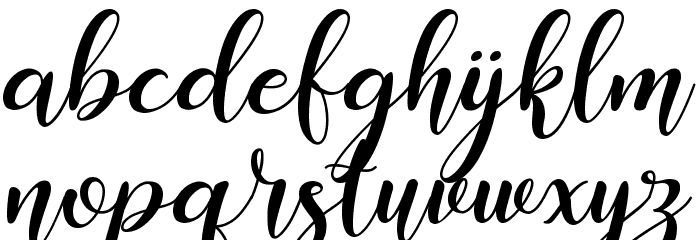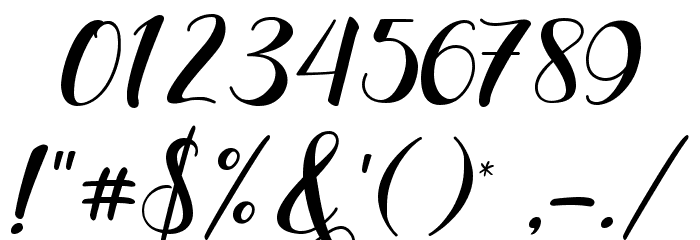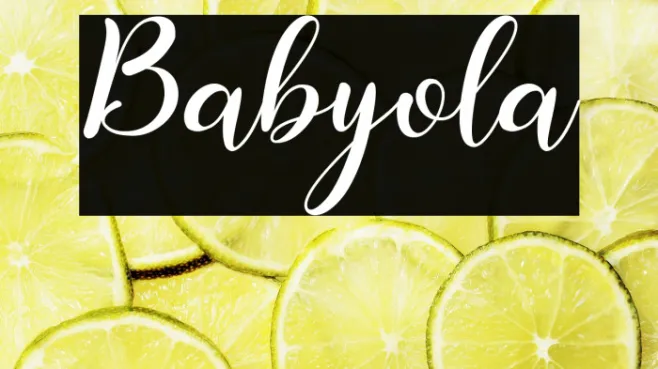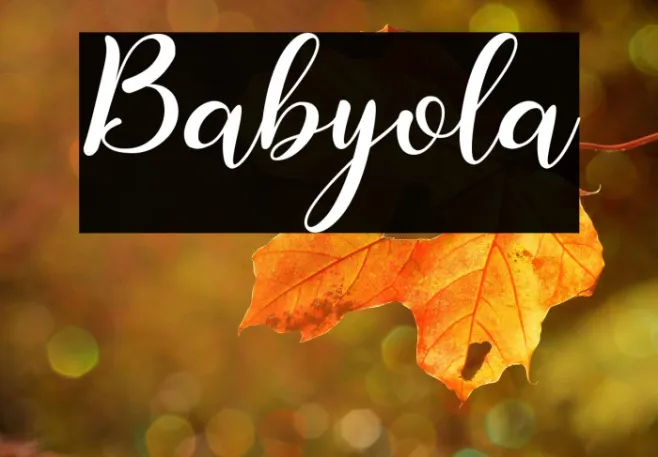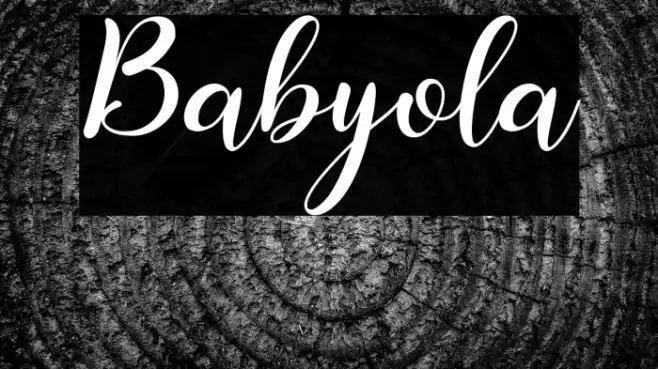
Babyola Font
This font features an elegant and flowing script style, characterized by its smooth, cursive letterforms. The uppercase letters are tall and graceful, with sweeping curves and a slight slant that adds a sense of motion and fluidity. The lowercase letters maintain a consistent style, with rounded edges and connected strokes that enhance the script's cohesive appearance. Numbers and special characters are designed to complement the overall aesthetic, maintaining the same fluidity and elegance. The font's design is both sophisticated and approachable, making it suitable for a variety of applications where a touch of elegance is desired.
An elegant, flowing script font with smooth, cursive letterforms.
- Font: Babyola
- Proposed Projects: Ideal for wedding invitations, greeting cards, branding, and elegant packaging.
- Category: Script
- Overall Style: Elegant
- Use Case: Logos, Invitations, Decorative text